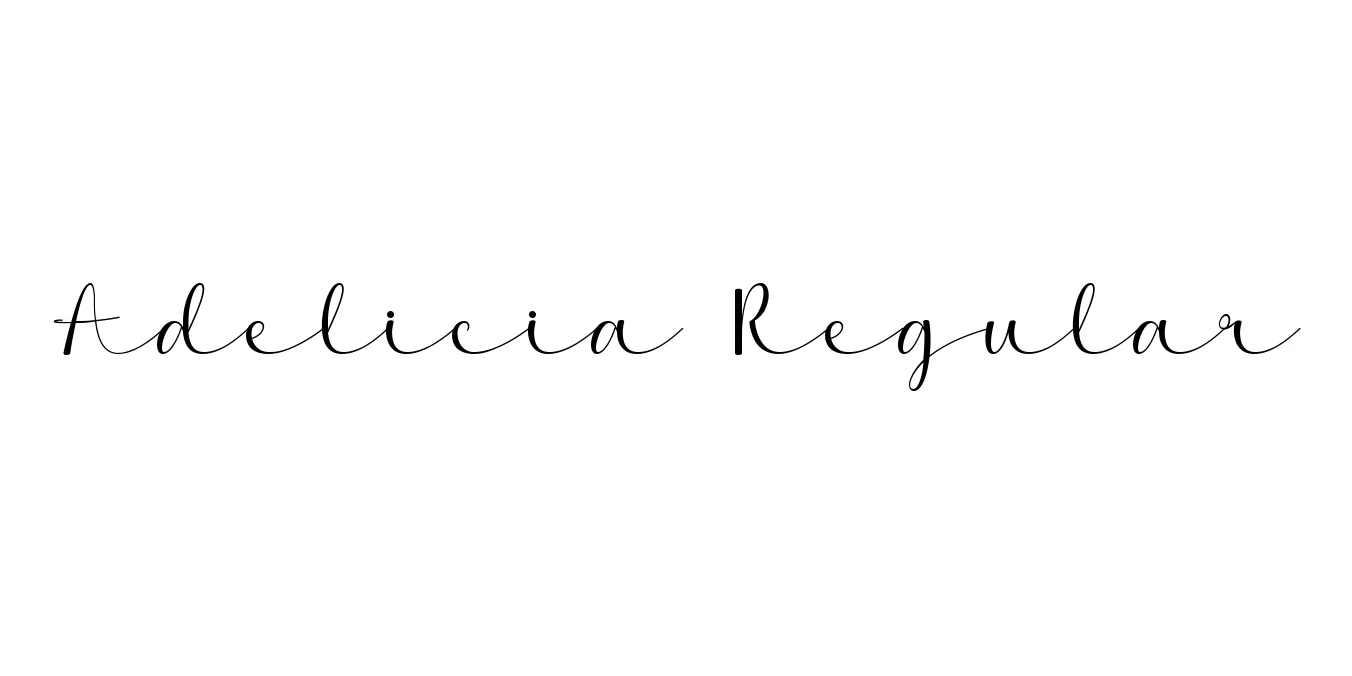
Adelicia Regular
Designed by Maulana Creative
Adelicia Script is a stylish and elegant calligraphy font designed by Maulana Creative. It features fluid, rhythmic strokes and a sophisticated aesthetic, making it a popular choice for romantic and high-end design projects. The font includes various OpenType features like ligatures and decorative swashes that allow designers to create a custom, hand-lettered look with professional ease.
Originally released to cater to the growing demand for modern copperplate-style typography, Adelicia has become a staple for wedding invitations and luxury branding. Its slanted characters provide a sense of motion and personal touch, ensuring that whether it is used for digital media or high-quality print, it maintains its legibility while offering a distinct decorative flair.
Adelicia Regular Best Uses
Ideal for invitations, save-the-dates, and elegant place cards.
Perfect for high-end boutique, beauty, and lifestyle brands.
Great for creating inspirational quotes and stylish Instagram graphics.
Adds a warm, personal, and handwritten touch to holiday and birthday cards.